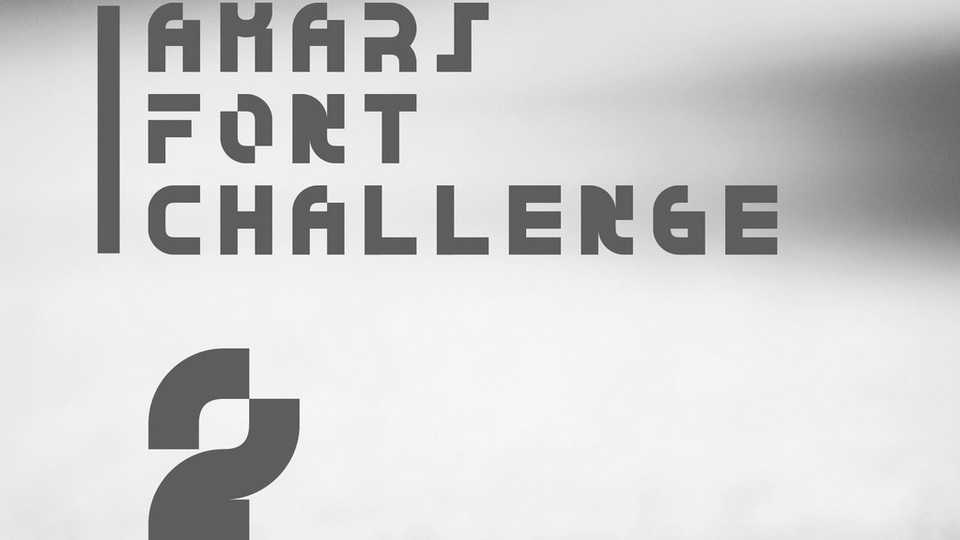
Download Amari Font 2/100, a bold variable font based on simple geometric shapes and modules. With its futuristic look the font is great for logos, posters, headlines, tech and sci-fi projects.